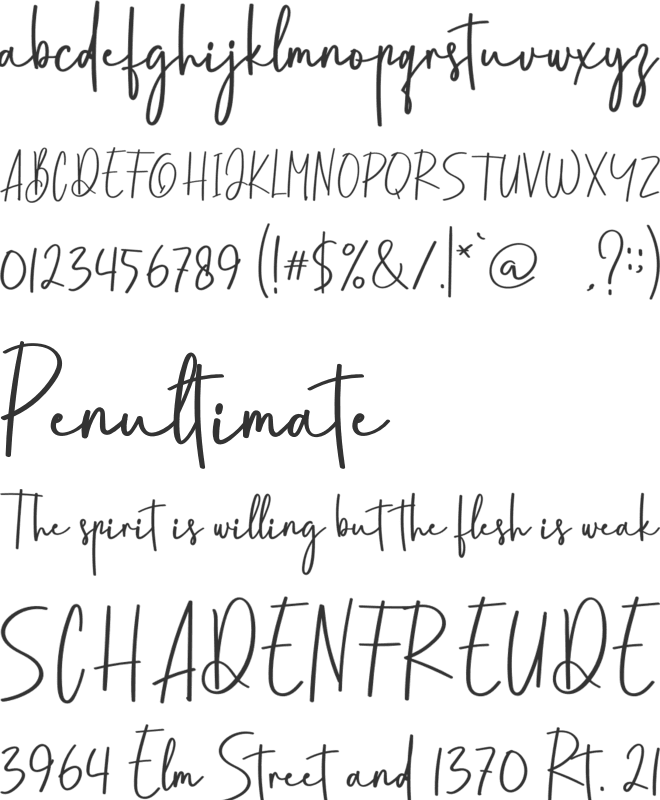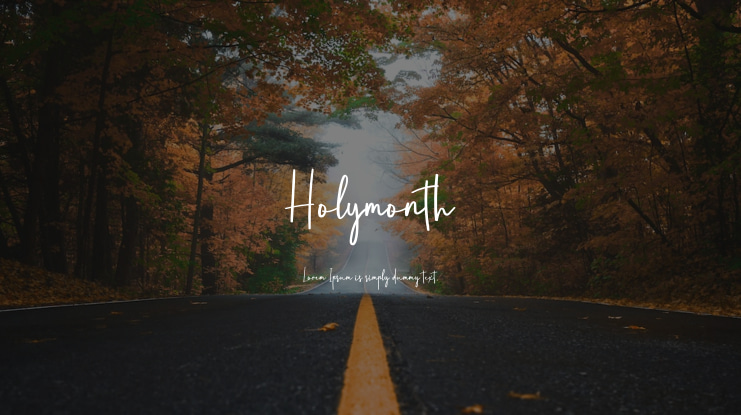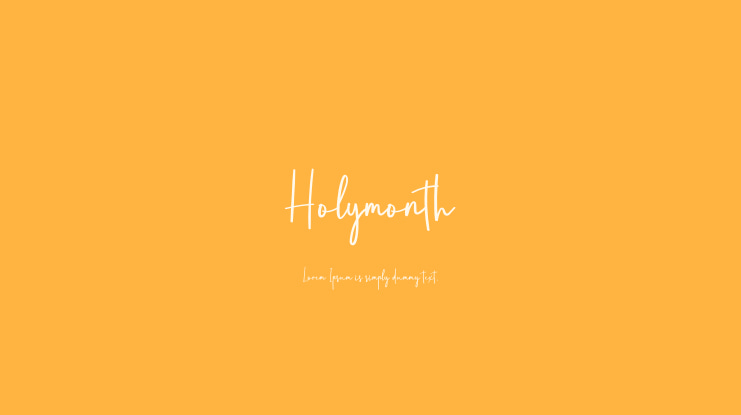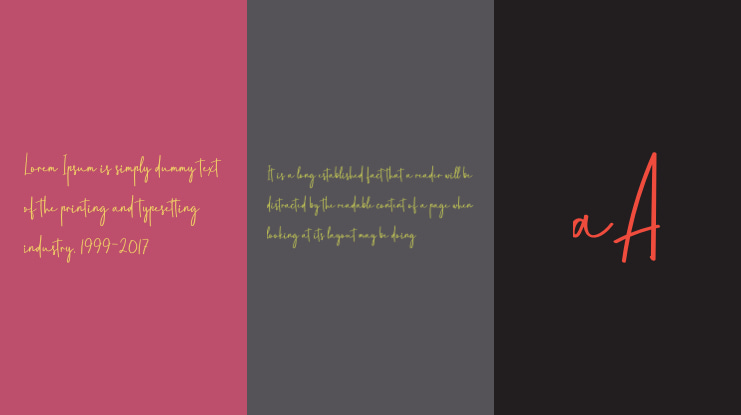
Holymonth Font
ABOUTThis font exudes an elegant calligraphic influence with a modern and trendy twist. Its adaptability makes it suitable for a wide array of creative projects, from letterheads to stationery._________________________________________________________________________IMPORTANT NOTICE!!!By downloading or using this font, you are bound by the Product Use Agreement:- This font is the FULL VERSION and is intended for PERSONAL USE ONLY. STRICTLY NO COMMERCIAL USAGE!- For CUSTOM PERMISSION or a COMPANY LICENSE, please visit: https://creativewritting.com/product/61beautiful-lenttering/or or click on the link below: www.creativewritting.com_________________________________________________________________________Attention :It is illegal to utilize this font for commercial endeavors or financial gain without the authorization of the author / admin, and note that infringing on this font usage without consent from www.creativewritting.com will result in a penalty of 5 times the specified price.Every contribution is highly valued. Paypal donation account:(paypal.me/masteeng99)